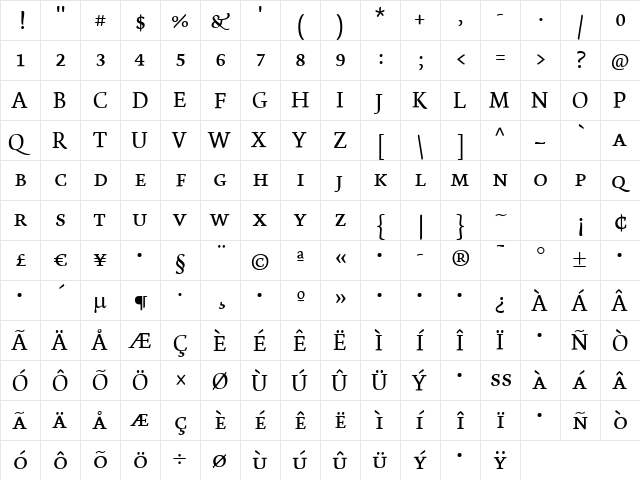
Dolly SmallCaps Regular
| Foundry | Underware |
Design Context for Dolly SmallCaps Typeface
Dolly SmallCaps is a composed and adaptable typeface that performs quietly and consistently across a wide range of design contexts.